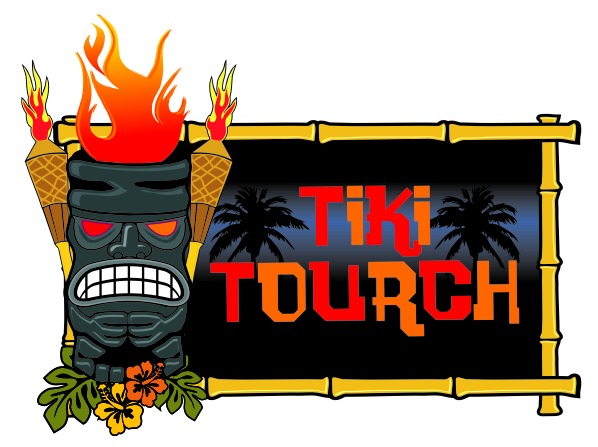
Congratulations! FontStruct Staff have deemed your FontStruction worthy of special mention. “Tiki Torch” is now a Top Pick.
Congratulations on the TP, the font has great sculptural quality and looks like hewn out of logs by a traditional craftsman.